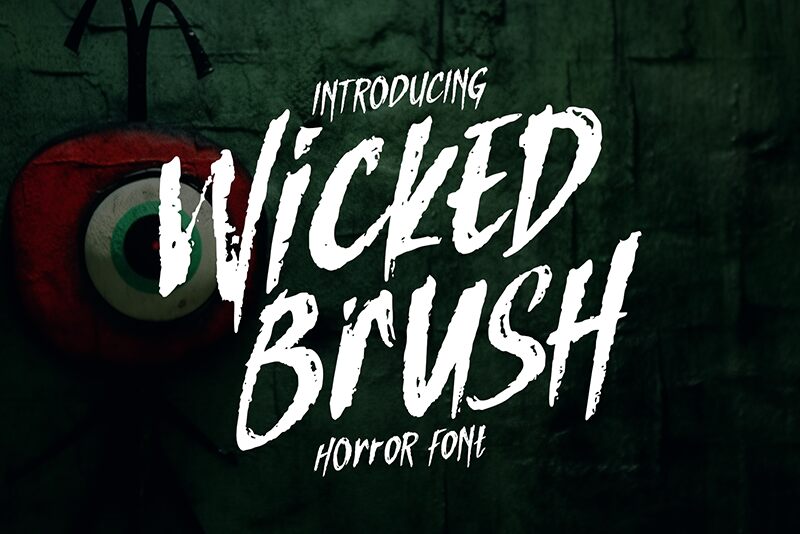
Wicked Brush
Wicked Brush font by Horror Font is a horror display and brush typeface with condensed width, scary style, and bold texture. Its forms are immature, energetic, artistic, and contemporary – all created as an expressive last try to communicate something that needs to get out immediately.